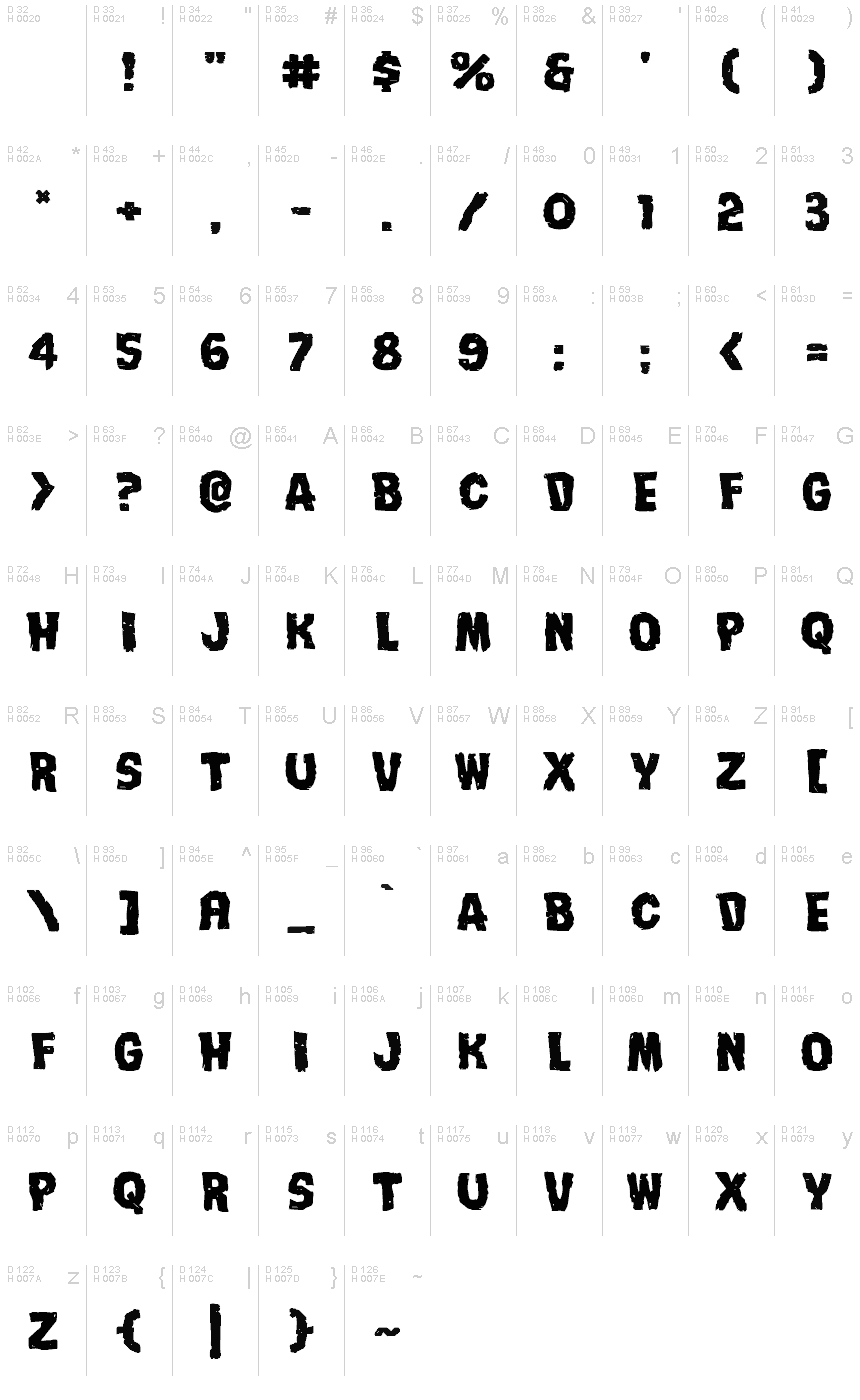
"Nightmare Alley" is a striking display font that exudes an undeniably ominous and unsettling presence. Inspired by the macabre and the mysterious, this font boasts a bold, angular aesthetic, with jagged letterforms that evoke a sense of unease and tension.
The heavy, imposing strokes and irregular shapes lend an almost visceral quality to the typography, suggesting a world of dark secrets and lurking dangers. This font's versatility shines in its potential applications, from horror-themed branding and editorial design to atmospheric event posters and book covers.
Its unapologetically eerie character commands attention, making it a powerful tool for creators seeking to craft narratives that delve into the shadows of the human experience.